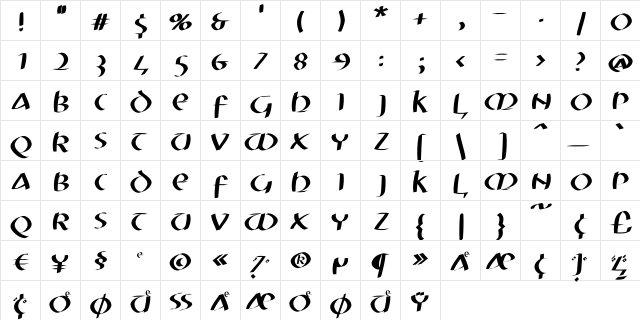
MKUnCialeObliqueFS Regular
Design Context for MKUnCialeObliqueFS Typeface
MKUnCialeObliqueFS is a composed and adaptable typeface that performs quietly and consistently across a wide range of design contexts. Its italic angle brings a sense of urgency and motion to the letterforms.
Pro Tip: Try MKUnCialeObliqueFS for annotation and caption copy alongside an upright companion — the contrast in angle creates a dynamic but ordered typographic system.